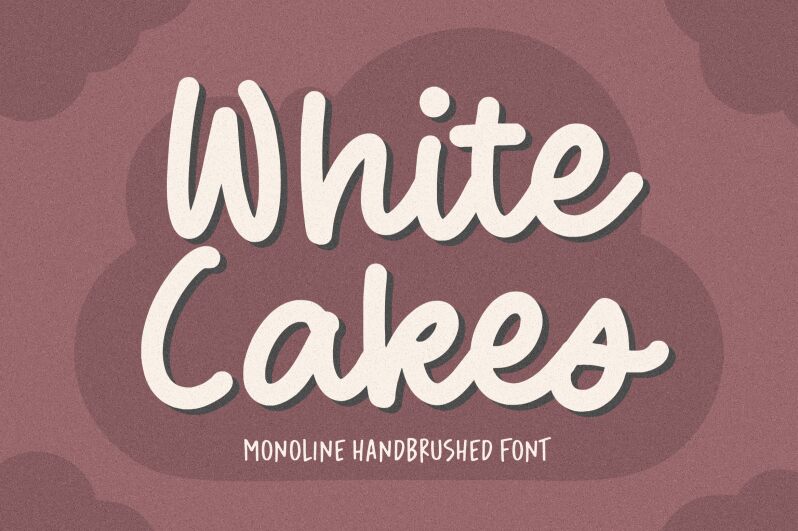
White Cakes
White Cakes font, designed by Balpirick Studio, embodies the whimsical charm of a handwritten script, perfect for evoking a sense of personal touch and warmth. This font features playful loops and fluid strokes that dance across the page, creating an inviting vibe. The generous spacing gives it an airy feel, making each letter stand out with flair.
Its aesthetic appeal lies in its cheerful character and unique flair, making it ideal for branding projects that require a friendly approach—think artisanal bakery logos or joyful event invitations. White Cakes becomes the go-to choice for designs where intimacy and creativity intersect, shining brightly in contexts like social media graphics or customized stationery. With its fresh personality, this font captures attention while maintaining elegance and playfulness.